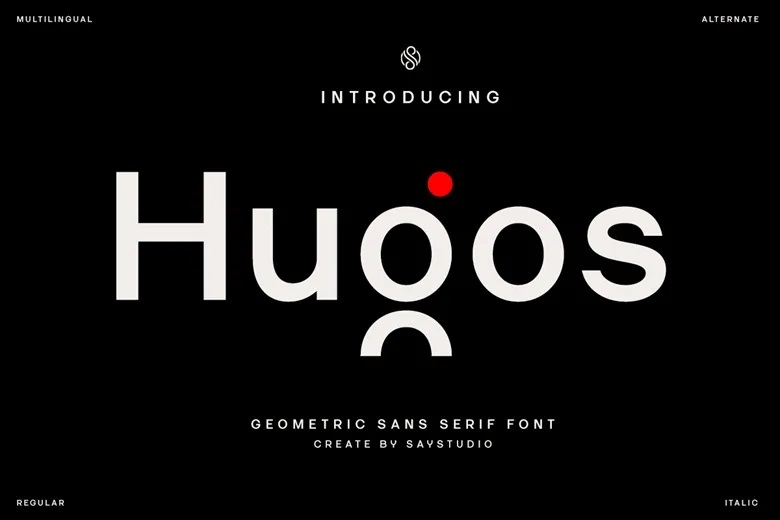
Hugos Font
Hugos is a geometric sans serif font that blends modern simplicity with a unique look. It’s versatile and works well for branding, logos, UI design, and digital layouts. Its geometric base gives Hugos a structured, professional feel, while small design touches help it stand out in headlines and branding.
With both regular and italic styles, it’s flexible for different layouts. If you’re creating a tech brand, a modern interface, or a clean visual identity, this typeface brings a sleek, modern look.
Hugos Sans Serif Font